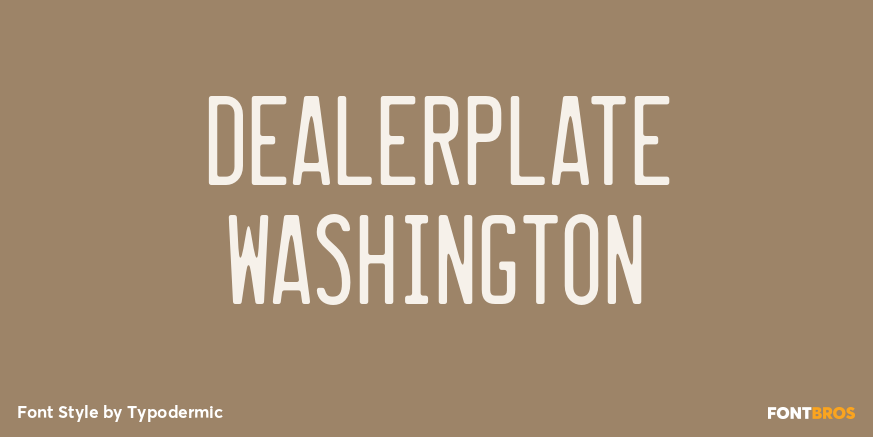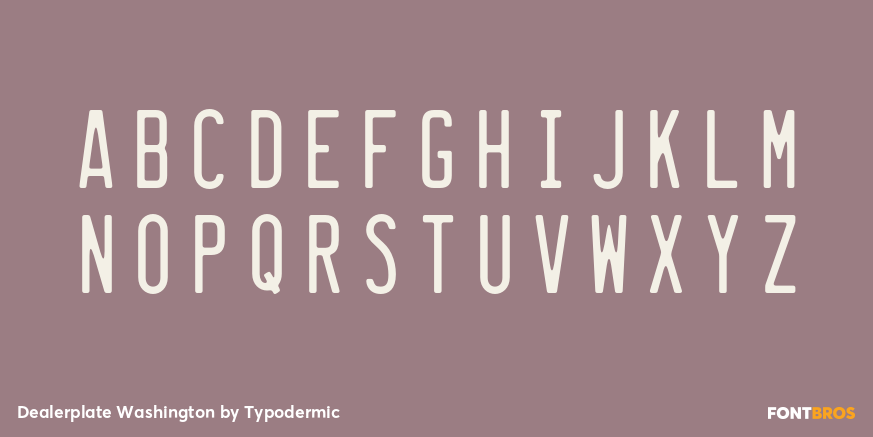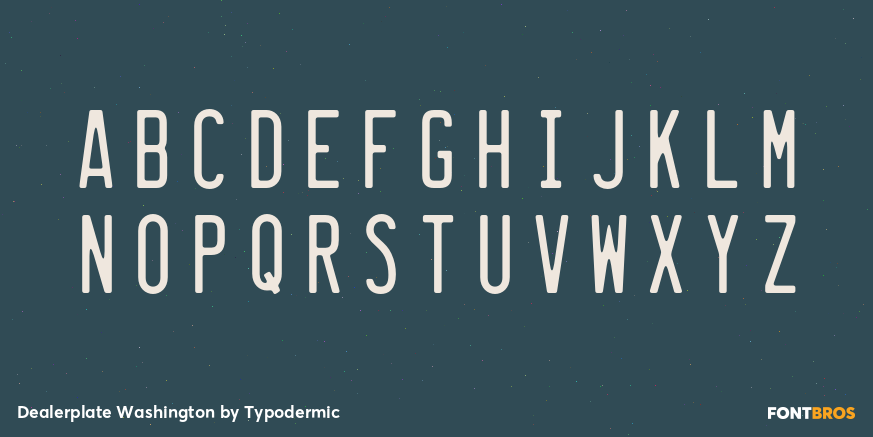
Dealerplate Washington
Dealerplate Washington expands Washington-inspired license-plate lettering into a complete display alphabet. It lets productions invent registrations, names, and companion graphics with a Pacific Northwest vehicle cue instead of relying on a generic plate font or manually guessing missing characters.
Use it for Seattle-set dramas, Northwest road films, police-procedural props, driving games, virtual-production traffic, evidence boards, impound records, parking permits, and automotive exhibits. The full alphabet can carry the plate's character into vehicle-selection screens, case-file captions, registration documents, dealership inserts, and garage signage, making Washington scenes feel consistently located.